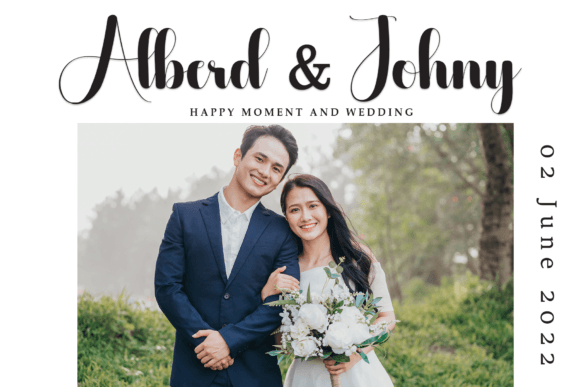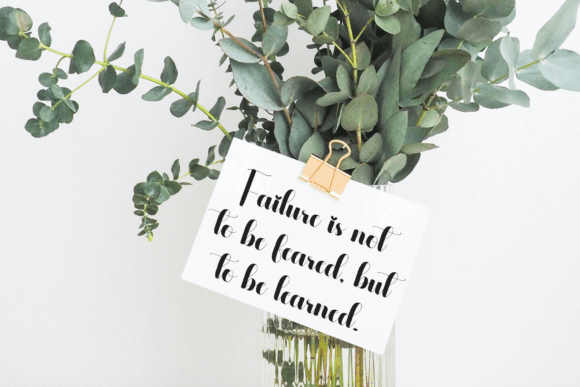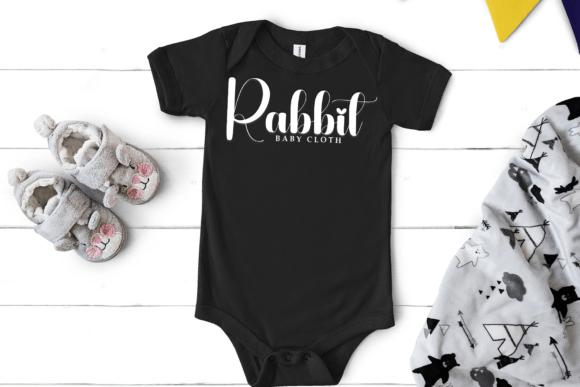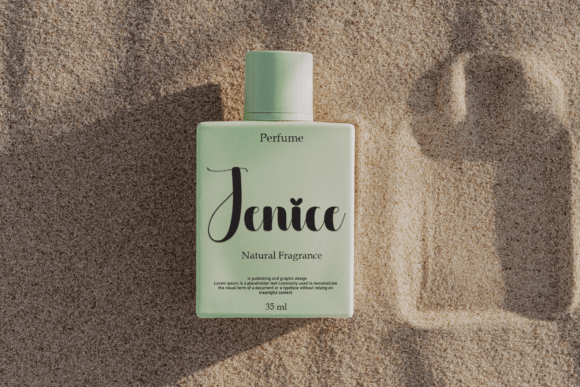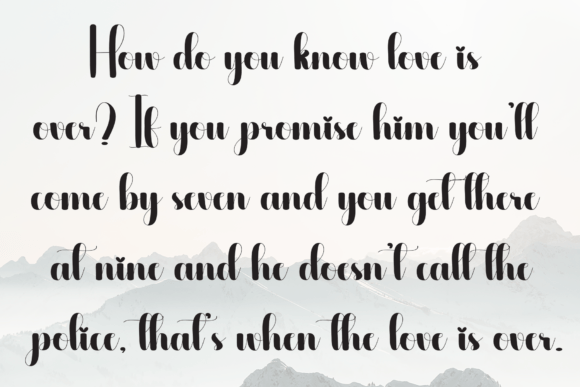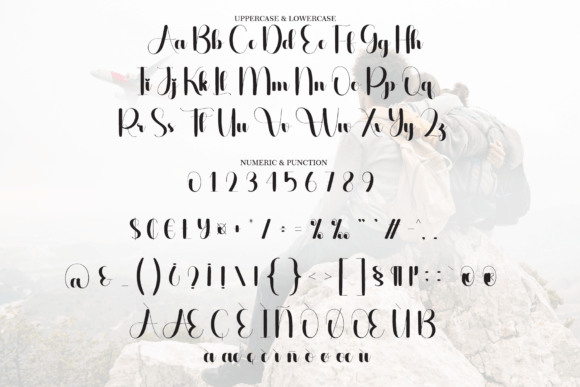
Unleash Your Creativity with Adventure Font
Have you ever stumbled upon a font that instantly sparks an idea and makes you want to create something new? For many designers, this moment of inspiration is the catalyst for their most innovative projects. It happened to me when I discovered Adventure Font – a beautiful, handwritten font that adds a friendly touch to any design.
Adventure Font is perfect for your daily planner, journal, and various DIY projects like back to school, weddings, and party decorations. Its lovely style makes it an excellent choice for invitations, posters, blogs, clothing, and child-related designs. With its wide range of applications, Adventure Font is a valuable addition to any designer’s library.
Key Features of Adventure Font
- Unique Characteristics: Adventure Font features a unique blend of rustic and modern elements, making it ideal for adventure-themed designs, travel brochures, and outdoor brands.
- Glyphs and Characters: The font includes a wide range of glyphs and characters, including Latin, Cyrillic, and Greek alphabets, as well as various symbols and icons.
- Font Weight and Style: Adventure Font is available in 6 font weights (Light, Regular, Medium, Bold, Extra Bold, and Black) and 2 font styles (Regular and Italic), providing versatility for various design applications.
Designer Review: Adventure Font
Overall, I’d say the Adventure Font has a lot of potential, but it falls short in some areas. Let’s dive in.
- The font’s playful and adventurous vibe is spot on. It’s perfect for outdoor-themed designs, like hiking trails or adventure travel websites.
- The font’s bold and extra bold weights are well-designed and add a nice touch to headings and titles.
- The font’s kerning is generally good, with some nice adjustments for letter combinations.
- The font’s italic and oblique styles are lacking in detail and feel a bit rushed.
- The font’s lower case letters, especially ‘g’ and ‘q’, can be difficult to read at smaller font sizes.
- The font’s support for non-English languages is limited, which might be a concern for designers working on international projects.
While the Adventure Font has some great qualities, its limitations hold it back from being a top-notch font. With some refinement and attention to detail, it could be a great addition to any designer’s toolbox.
Adventure Font: A Practical Application Guide
Getting the Most Out of Adventure Font
To get the most out of Adventure Font, try the following:
– Experiment with different font sizes and styles to create visual interest.
– Use Adventure Font in combination with other fonts to create a unique and dynamic design.
– Pay attention to kerning and tracking to ensure your text looks professional and polished.
– Don’t be afraid to try new things and push the boundaries of what’s possible with Adventure Font.
Adventure Font is perfect for:
– Travel and adventure-themed designs
– Outdoor and nature-inspired designs
– Bold and eye-catching headlines
– Creative and imaginative designs
Is Adventure Font compatible with accessibility standards?
Yes, Adventure Font is designed to meet accessibility standards. The font is optimized for readability and provides clear typography for users with visual impairments. Additionally, the font’s design ensures that it can be easily scaled and zoomed on various devices, making it accessible to users with different abilities.